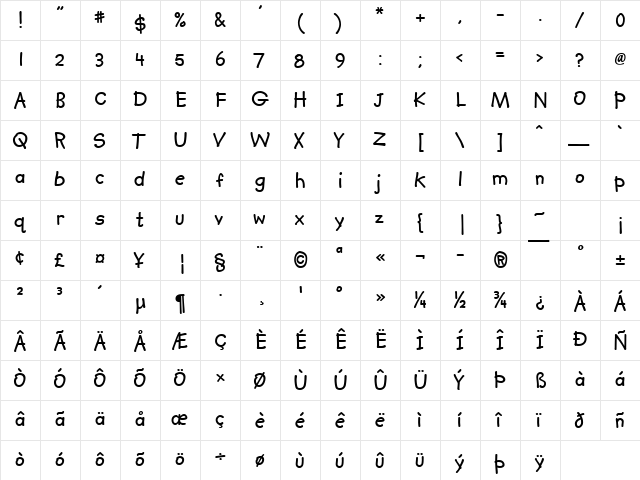
Kidprint Bold
Design Context for Kidprint Typeface
Kidprint offers clean, dependable letterforms without strong stylistic allegiance, making it a practical choice for designers who need flexibility. Its bold stroke weight gives it real presence on the page.